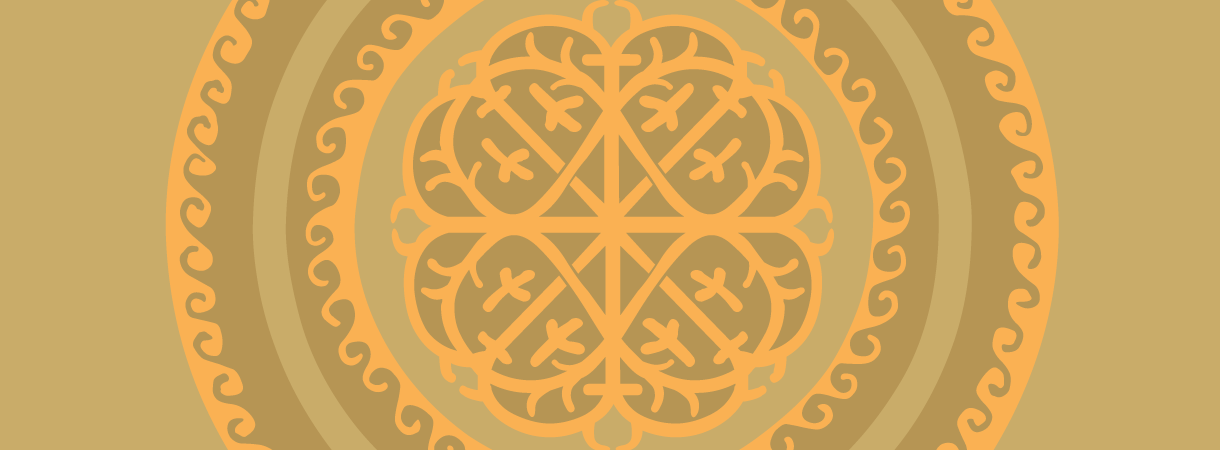
Hidden Ornamental Treasures unearthed
East meets West. Byzantine art –mostly a religious art- is the result of a cross-fertilization of ideas that led to a resurgence in creative thinking and aesthetic stimulation. The two basic sources from which it is derived are the Hellenistic and Eastern art. The former, a representational art, is more anthropocentric, whereas the latter is relatively non-figural, decorative in character, lavish in design and dazzling in color.
In the representation of the human form it is the influence of antiquity, the hellenistic style, which is preeminent, whereas that of the East predominates in the decorative features (fig.2).
The aim of the Byzantine art was not purely aesthetics, but rather to induce spiritual contemplation and bring the faithful closer to God.
The styles and forms that predominate the Byzantine decorations are the following:
1. Geometric. They derive from ancient Greek motifs on vases, as well as arabesque ornaments, which either combined or separate, are used as bands on wall paintings and for headpieces in manuscripts
2. Flowers, birds and animal designs (fig.3).
The majority of Byzantine art is represented with wall paintings, mosaics, iconography and illuminated manuscripts. These manuscripts are the major source of the Byzantine civilization in all its aspects. They are mostly Greek but there are also several in Latin, Arabic, Armenian and Russian. Their craftmanship is superlative. They are embellished with unparalleled decorations such as initials, borders and miniature illustrations, using rich colours on glittering surfaces.
They are illustrated in three different ways:
1. with decorative headpieces at the opening of a page, often accompanied by a decorated initial (fig.4).
2. with figures, scenes and decorations disposed vertically and horizontally over text (fig.5).
3. with full-page illuminations (fig.6).
Byzantine manuscripts is a form of artistic expression with great interest to scholars, designers, architects, artists, researchers and students. Unfortunately, these historic treasures were kept from the public eye for centuries.
The centers of the Byzantine culture were conquered by the Turks and destroyed, but several of them, such as the monasteries of Mt. Athos, Meteora and Patmos in Greece, managed to survive and keep their libraries intact but far from the interested individuals.
An unprecedented series of ornaments and borders were revived -based on these originals- and are available in a layered outline font format by Parachute. You may view samples here: